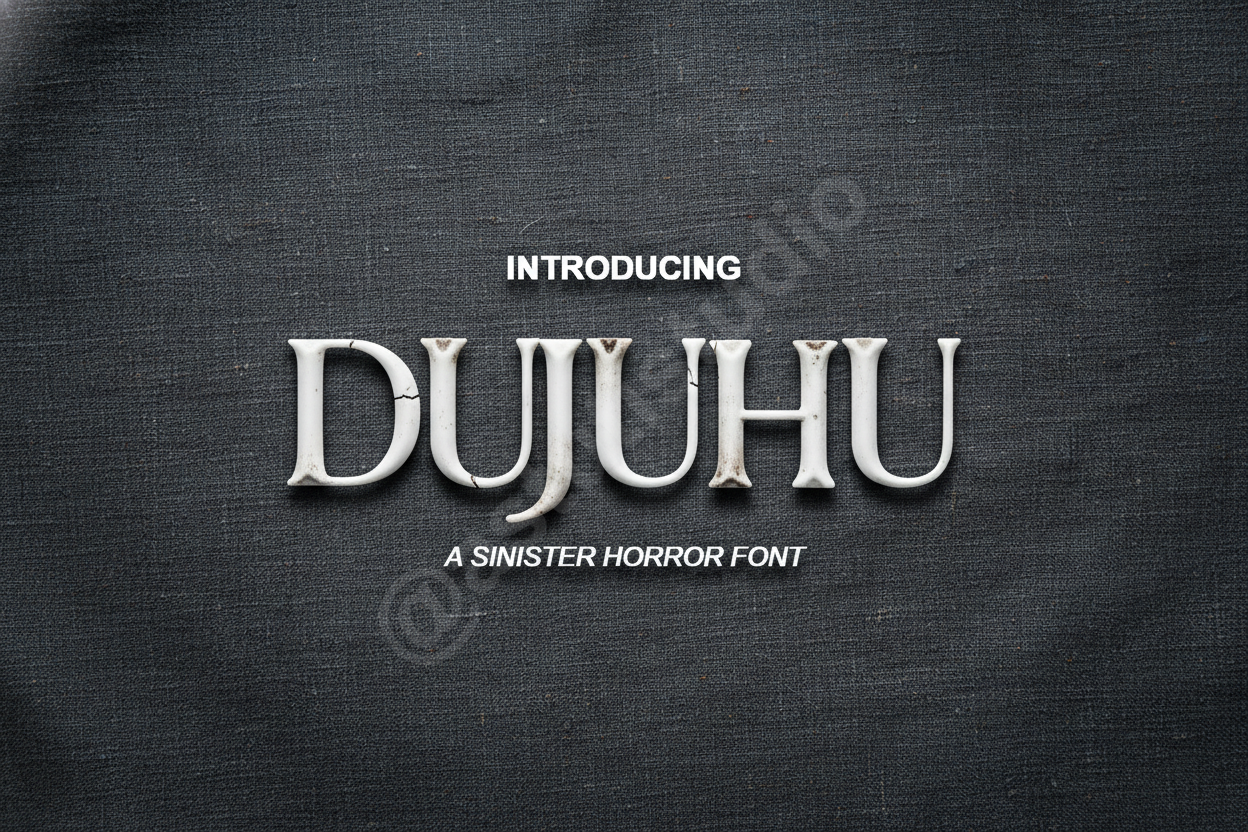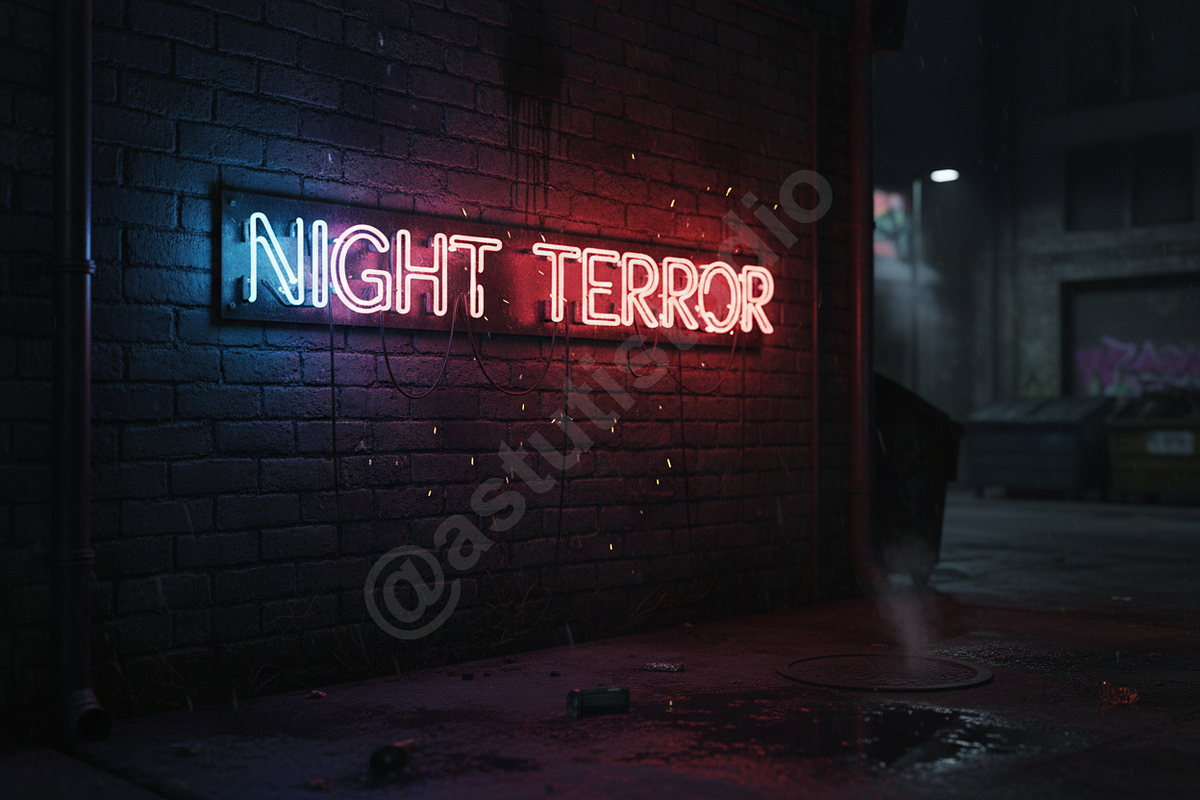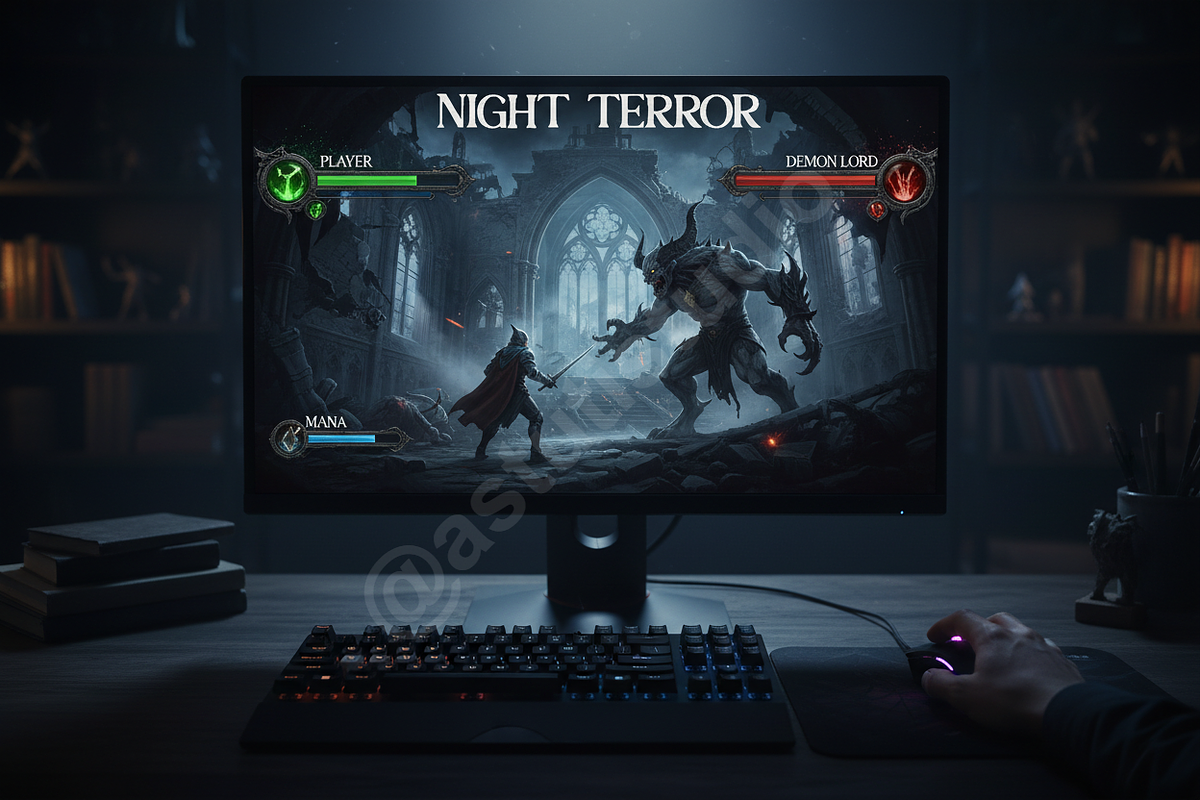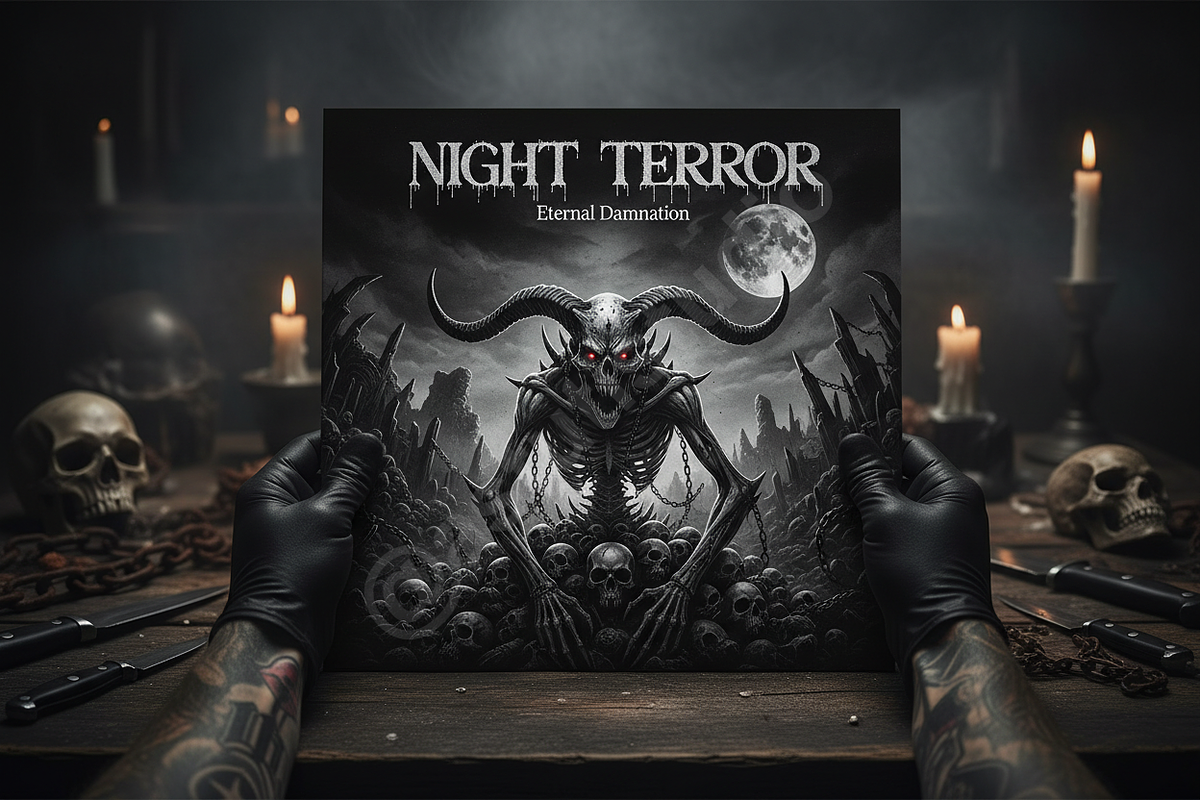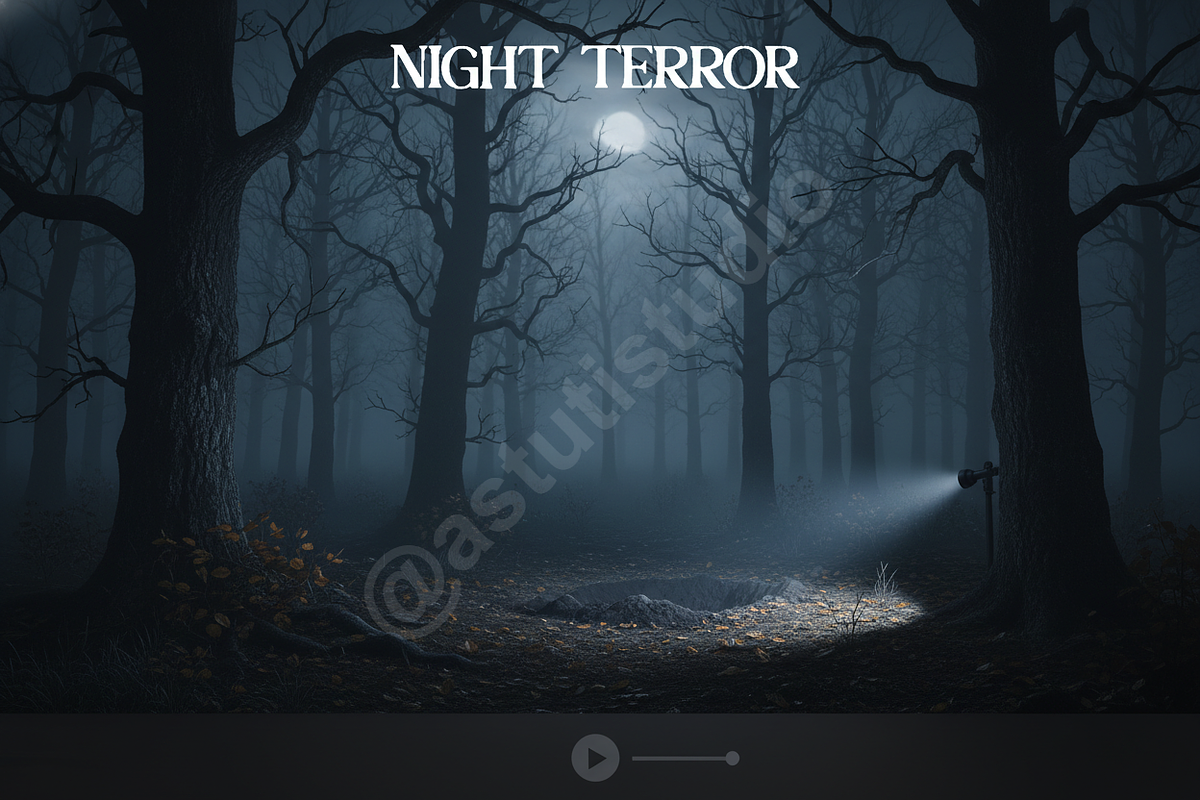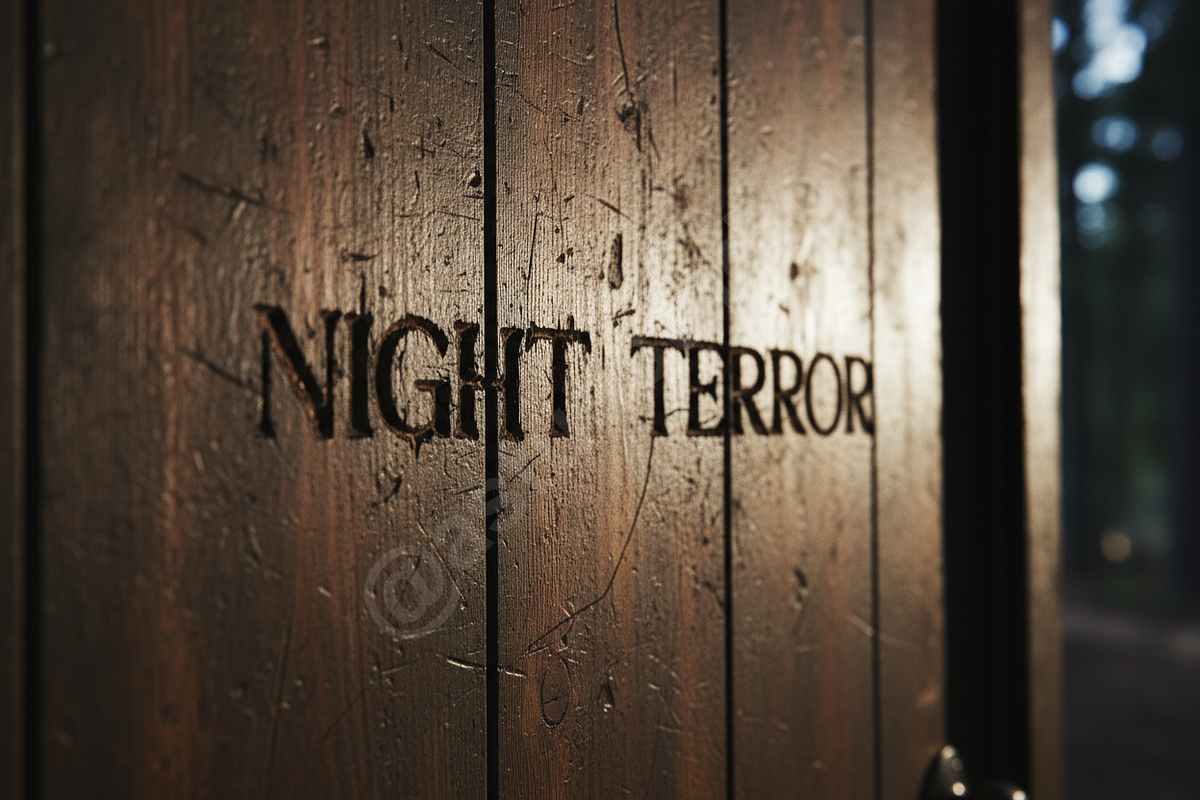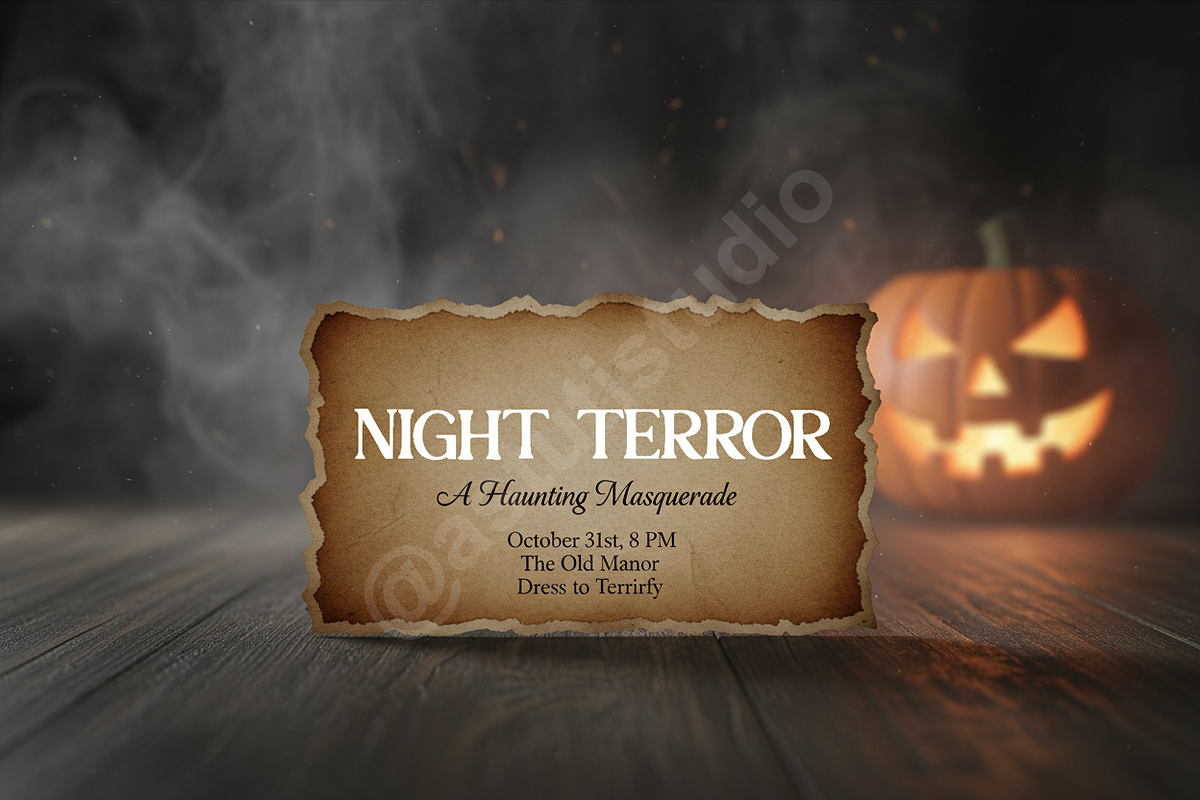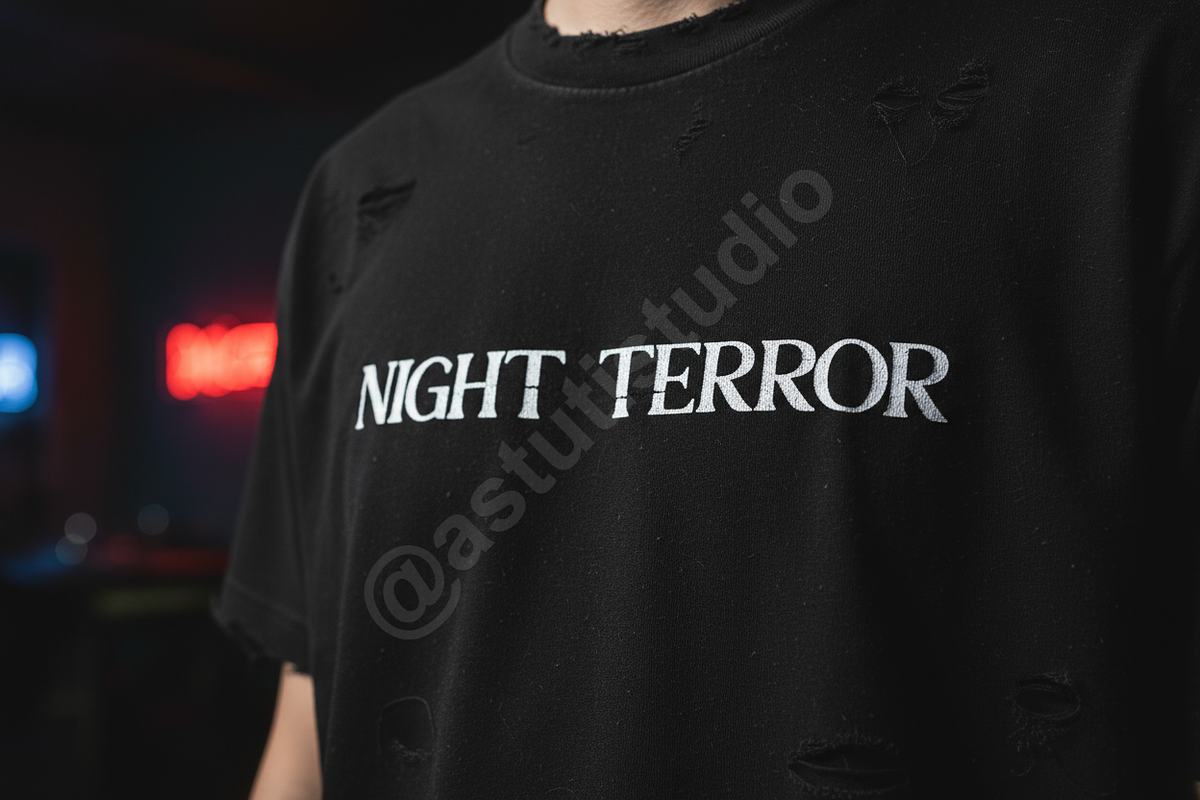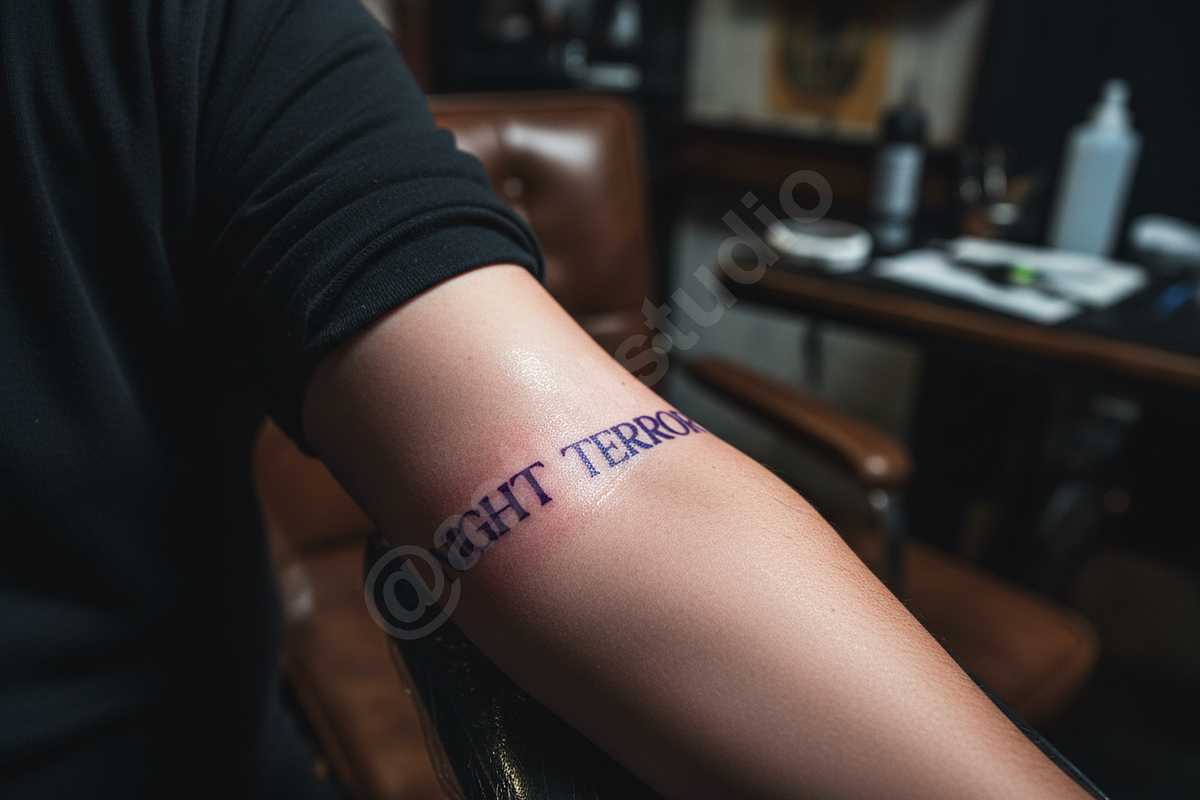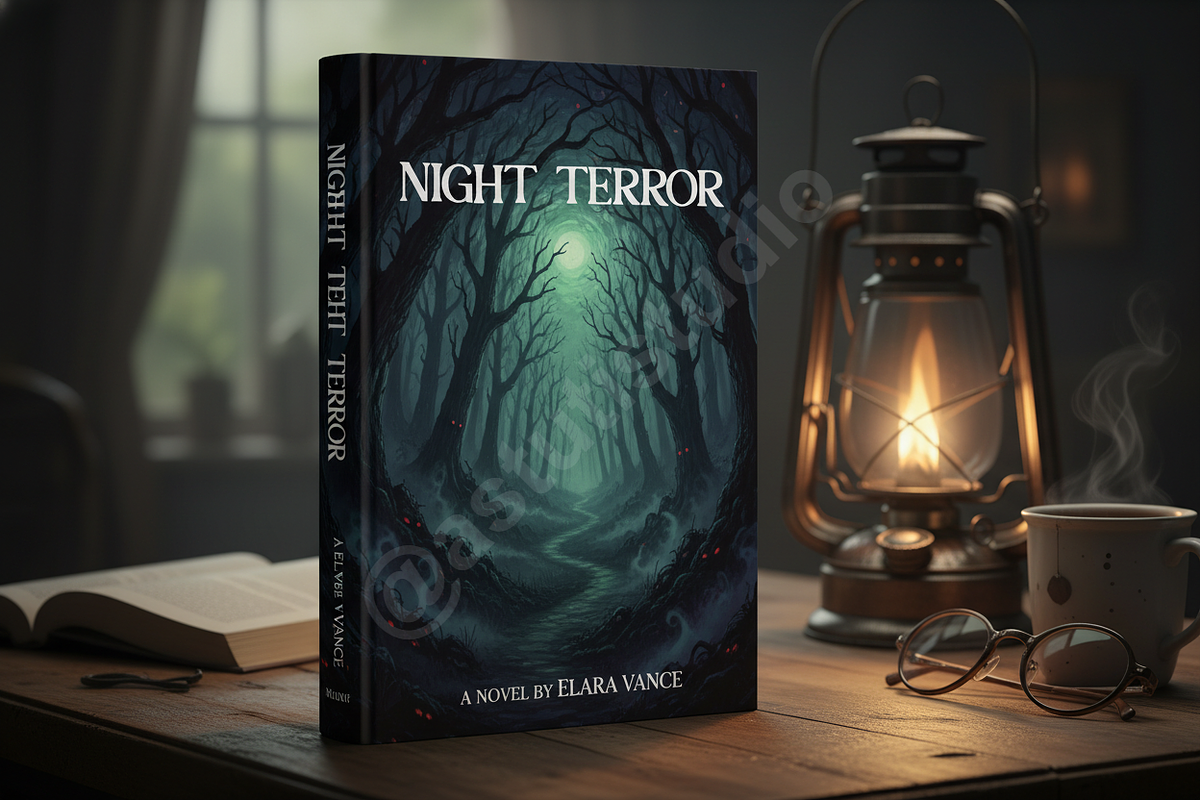
Dujuhu – Elegant Luxury Serif Font
Introduction: Introducing Dujuhu, an exquisite serif font designed to embody sophistication and timeless elegance. Dujuhu is meticulously crafted for discerning brands and designers who seek to convey luxury, refinement, and a touch of the extraordinary. Its graceful curves and precise serifs make it an impeccable choice for high-end luxury branding, impactful editorial design, and cultivating a sophisticated presence across all social media platforms.
- Comprehensive Uppercase & Lowercase Glyphs
- Elegant Ligatures & Stylistic Alternates for unique typography